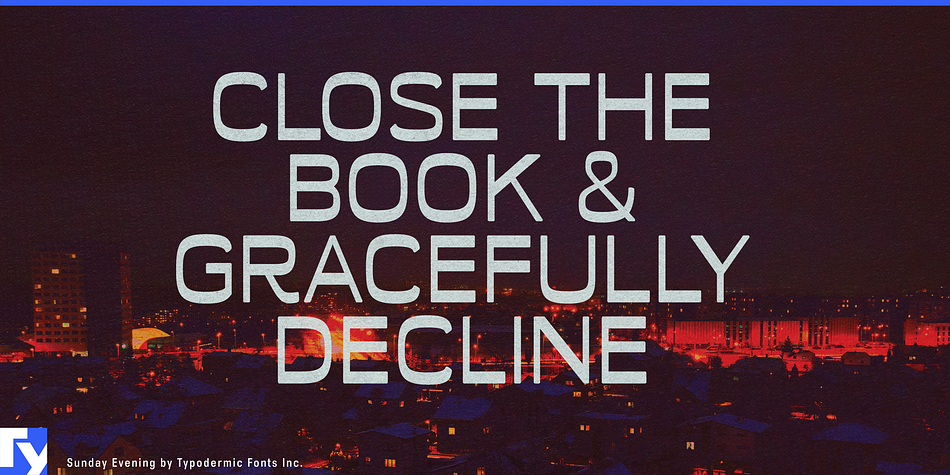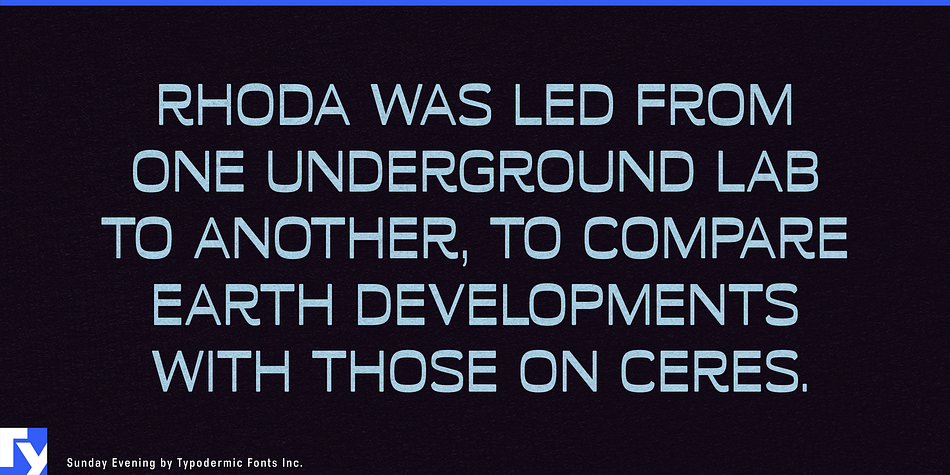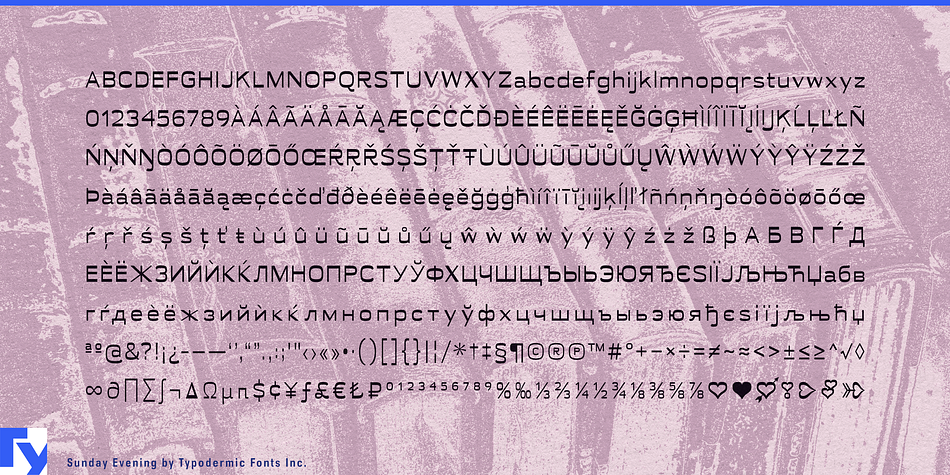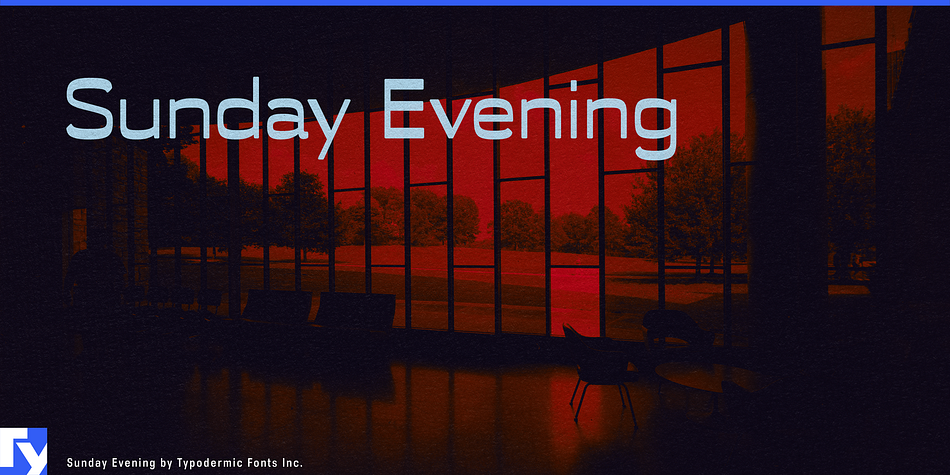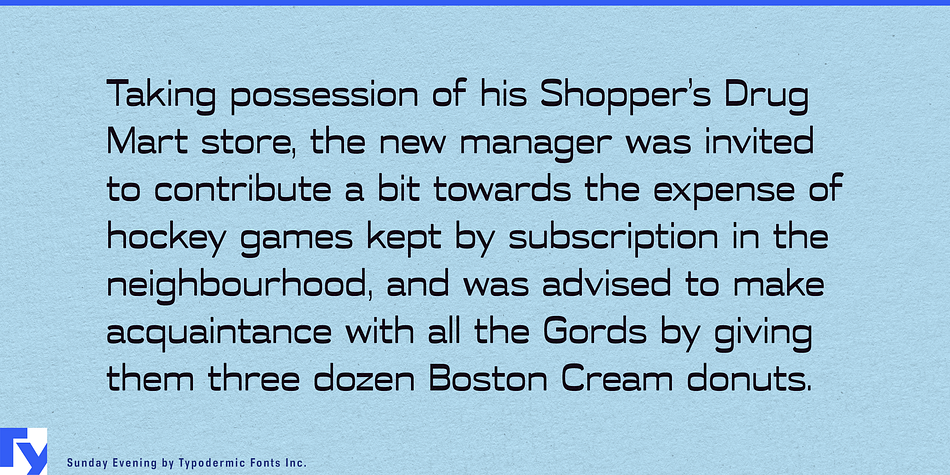
Sunday Evening is a display sans font published by Typodermic Fonts Inc.
Sunday Evening is a reverse contrast sans-serif display typeface. While the high waistlines and curved ends suggest Art Nouveau, the forms are high-tech superelliptical like Microgramma.
Even though Sunday Evening was primarily intended for display, it comes well equipped. You’ll find all the mathematical operators, fractions, monetary symbols and, combining accents you’ll ever need.
Heart symbols have been included as well: try typing the shortcodes [heart1] [heart2] etc.